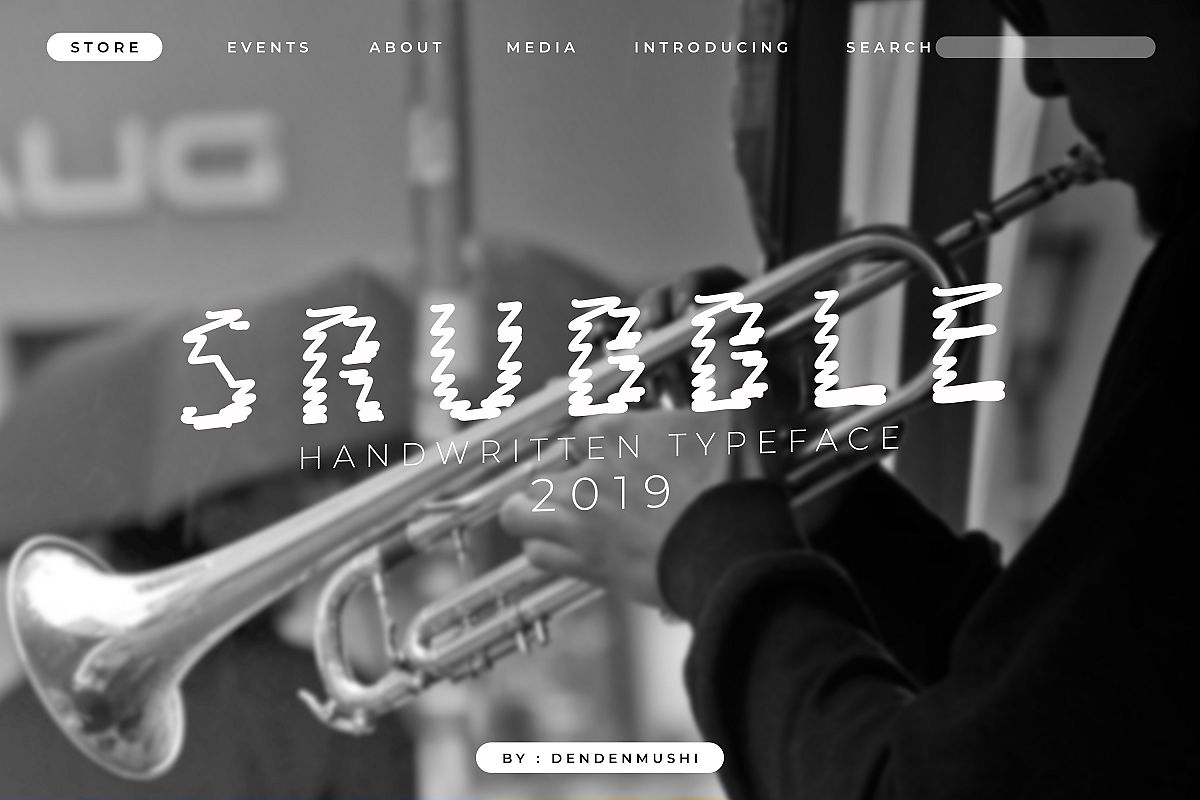
SRUBBLE
SRUBBLE Font is a unique, cool and modern display font. It's hand look style makes it perfect for use in all your design projects be it logos, signatures, labels, packaging design, blog headlines. Using Boom Busted will definitely make your text stand out. Boom Busted comes with upper and lowercase Basic Characters, Numbers, Marks and Punctuation. Give it a try! You will surely love it